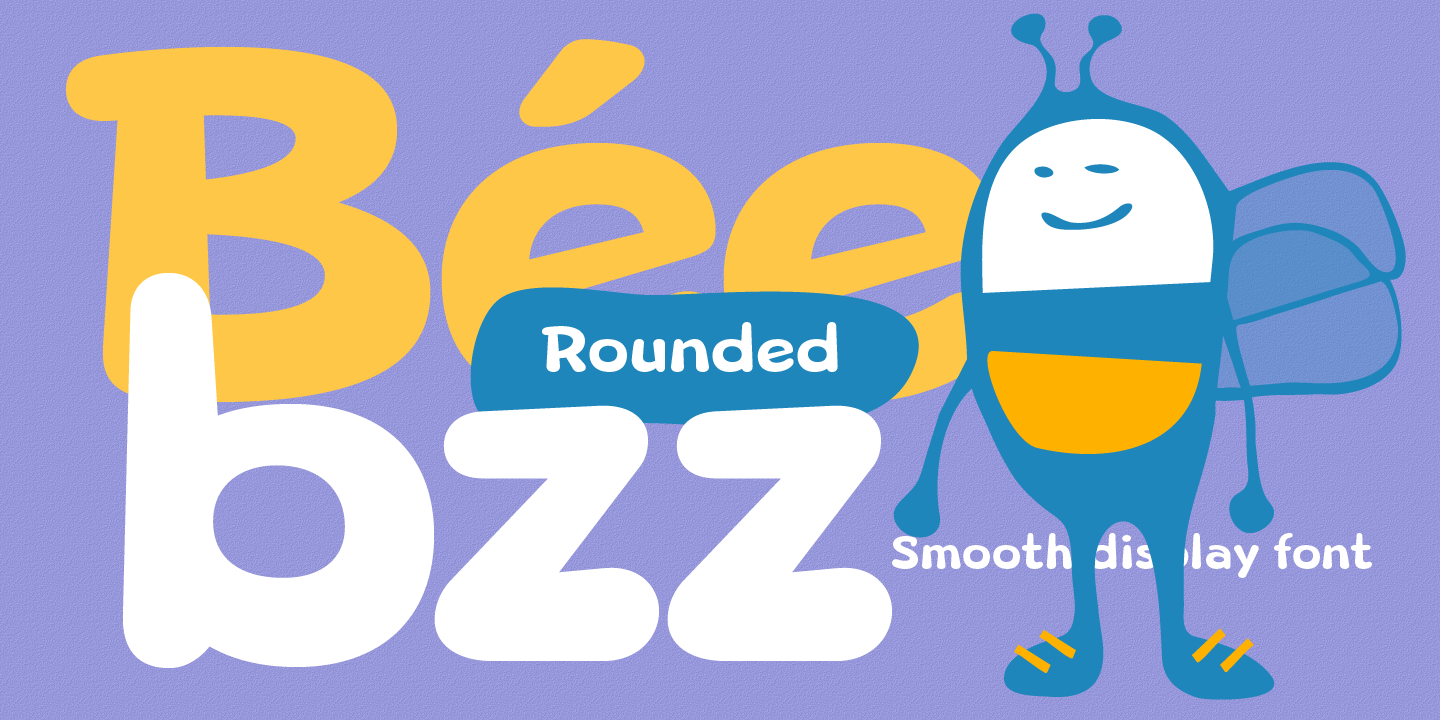
Beebzz Rounded Font is perfect for honey producers, bee conservation organizations, natural organic brands, children's educational materials, buzzing activity centers, environmental awareness campaigns, pollinator garden signage, artisan beekeeping products, and any project requiring typography with busy industrious energy and sweet rounded charm.
What makes Beebzz Rounded Font exciting is its industrious buzzing that captures the energetic activity and community spirit of busy beehives with rounded letterforms that seem to vibrate with the constant motion and productive energy of worker bees. This delightful typeface embodies the harmonious collaboration of nature's most efficient workers with soft, curved characters that reflect the organic geometry of honeycomb structures and the gentle sweetness of natural honey production. The font's buzzing character and natural sophistication make it perfect for brands celebrating environmental stewardship, natural products, and the vital importance of pollinators in our ecosystem.
The Beebzz Rounded Font family includes regular and bold weights, featuring complete uppercase and lowercase alphabets, numerals, punctuation marks, and bee-inspired design elements. The font maintains consistent buzzing energy throughout all weights while ensuring excellent readability for both busy headlines and sweet text applications in environmental and natural product contexts.
Whether you're designing for beekeeping businesses, creating environmental education materials, or developing natural product branding with pollinator aesthetics, Beebzz Rounded Font Free Download brings unmatched natural energy and environmental sophistication to your projects. This charming typeface transforms ordinary text into buzzing expressions of natural productivity that celebrate the essential work of pollinators and the sweet rewards of environmental harmony. The font's industrious character makes it ideal for honey producers, environmental organizations, and natural lifestyle brands. Download this exceptional font today and bring the busy sweetness of bee-inspired energy to your design projects with authentic natural charm and buzzing rounded elegance.